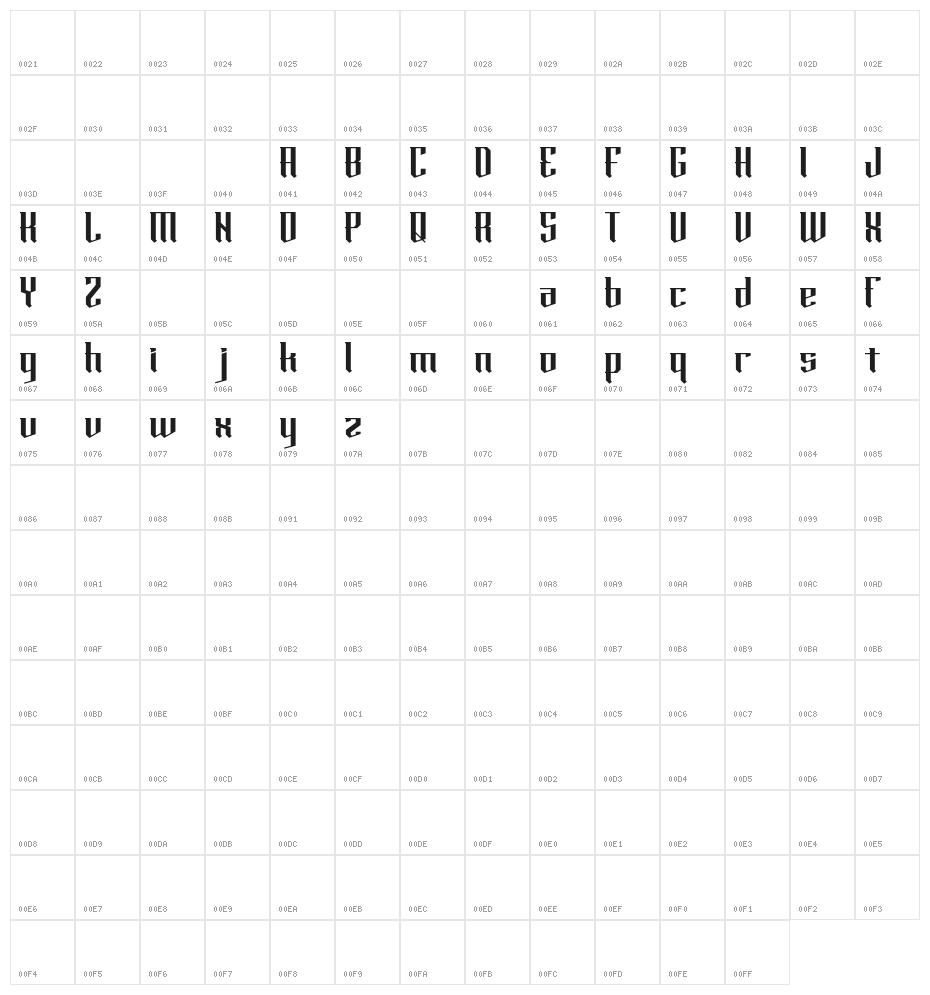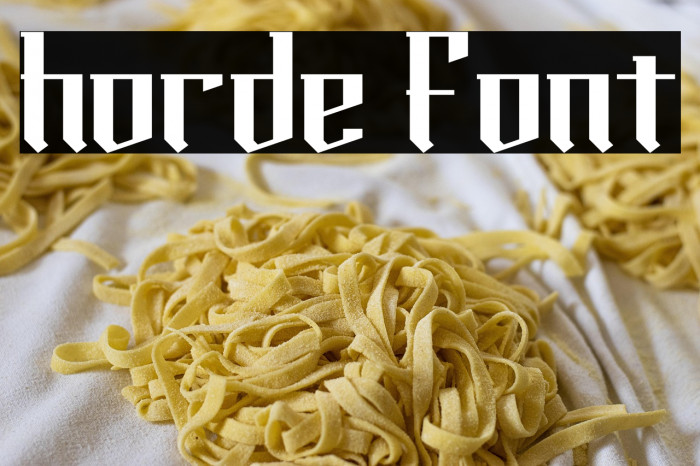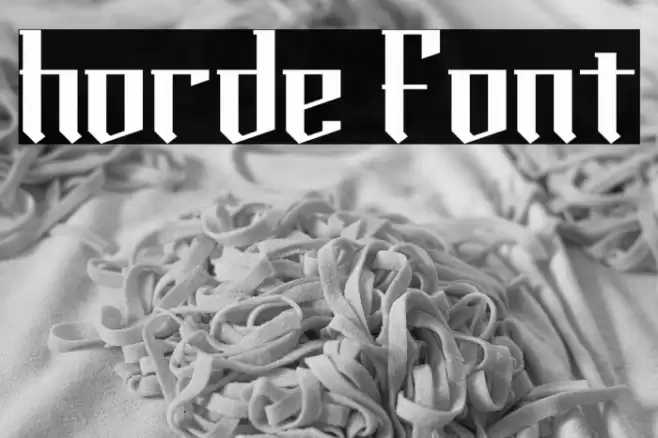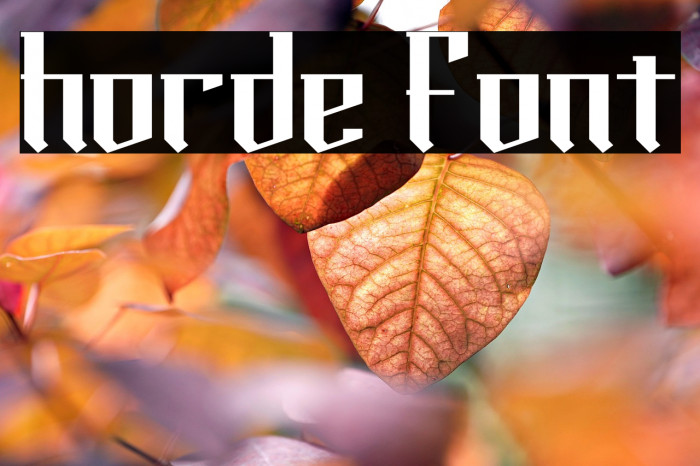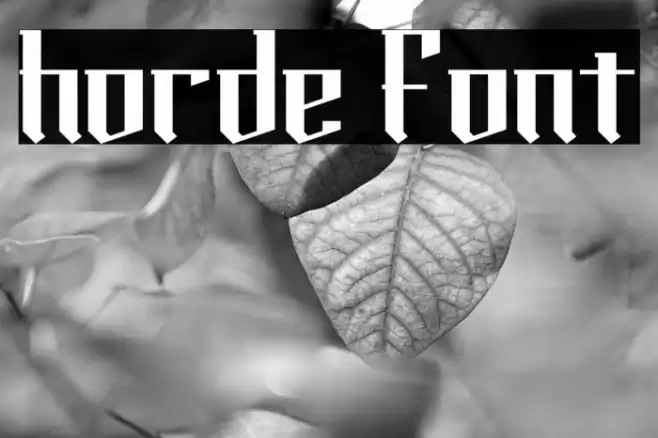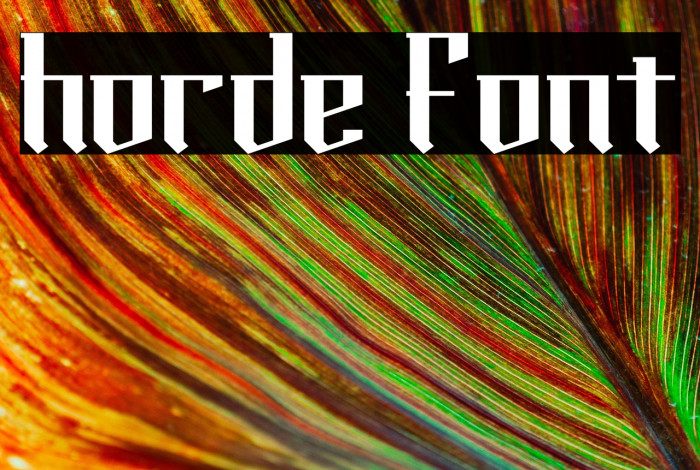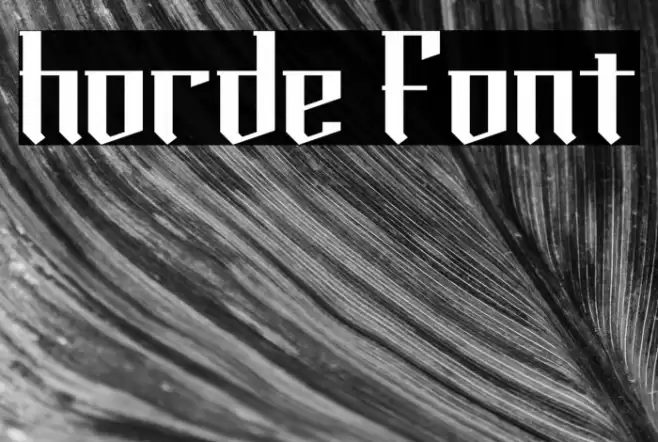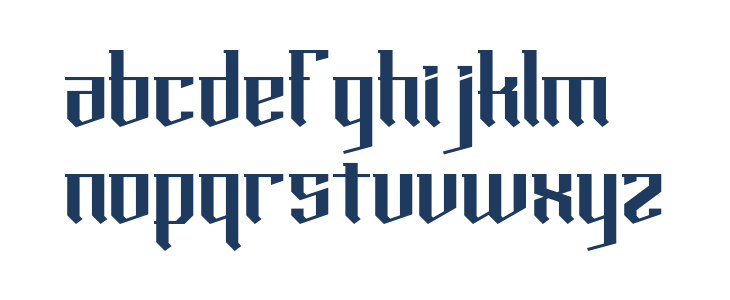
horde Font
horde Description
This font features a bold and striking design with a strong Gothic influence. The characters are sharply angular with pronounced vertical strokes and pointed serifs, giving it a medieval and dramatic appearance. The uppercase letters are tall and commanding, while the lowercase letters maintain a consistent style with slightly more rounded forms. The numbers and special characters follow the same aesthetic, ensuring uniformity across all glyphs. This font is ideal for projects that require a historical or fantasy theme, as its distinctive style evokes a sense of tradition and strength.
| Proposed Projects | Ideal for fantasy book covers, medieval-themed event posters, or video game titles. |